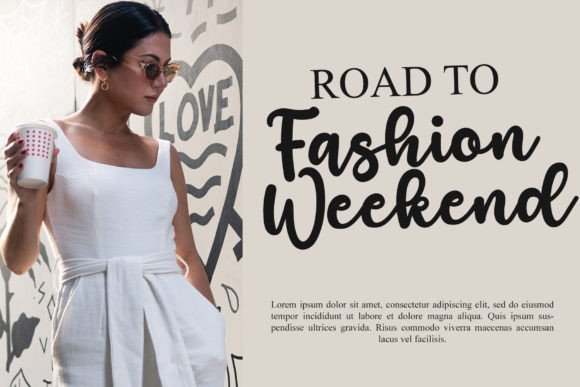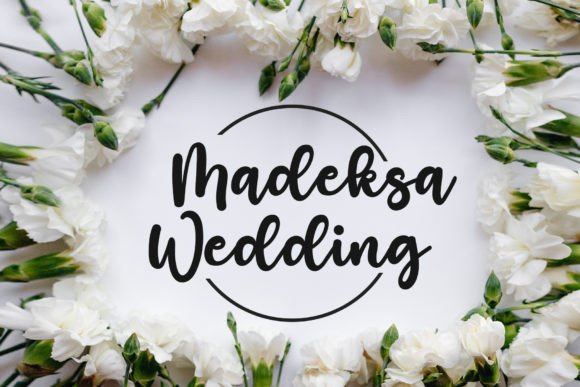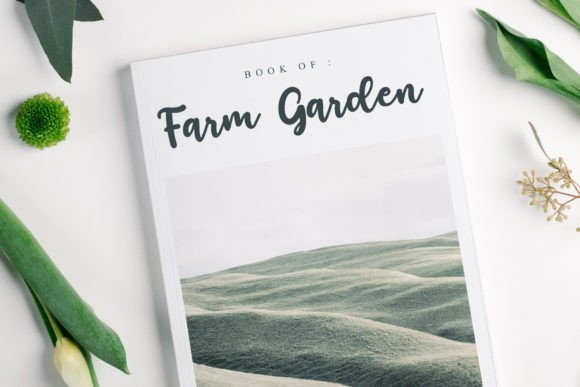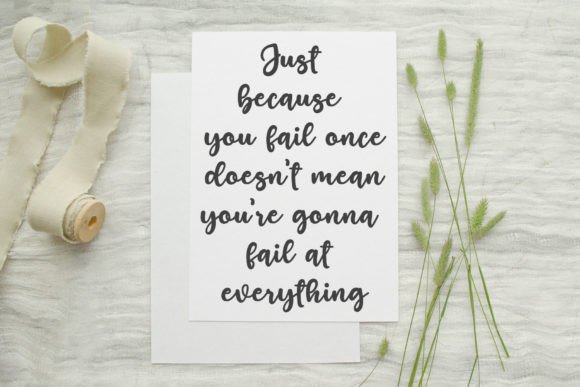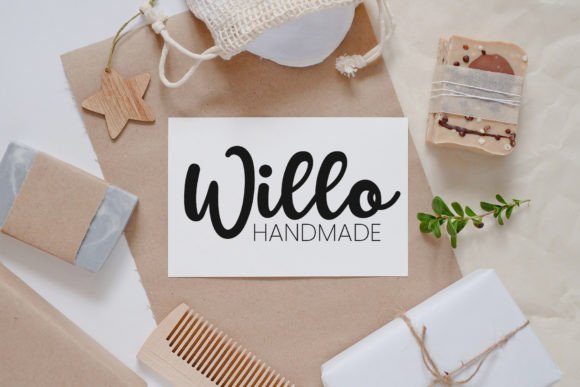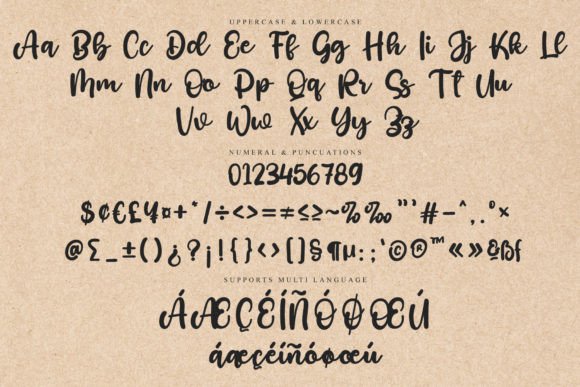
Introduction to Dignite Font
Dignite is a modern and friendly handwritten font.
This font is neatly crafted and highly detailed Whatever the topic, this font will be a wonderful asset to your font library, as it has the potential to enhance any creation.
Dignite Font offers exceptional quality and versatility, making it a valuable addition to your design toolkit. Whether you’re creating for personal projects or commercial use, Dignite Font delivers professional results.